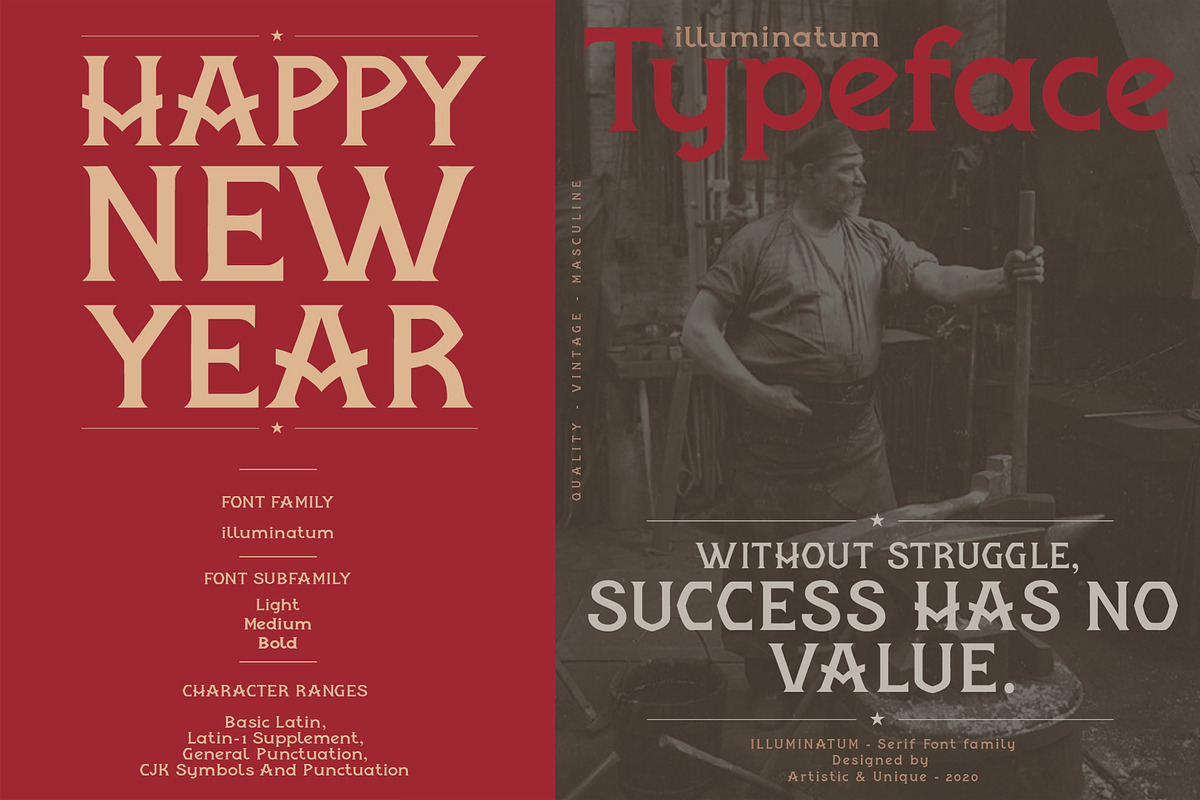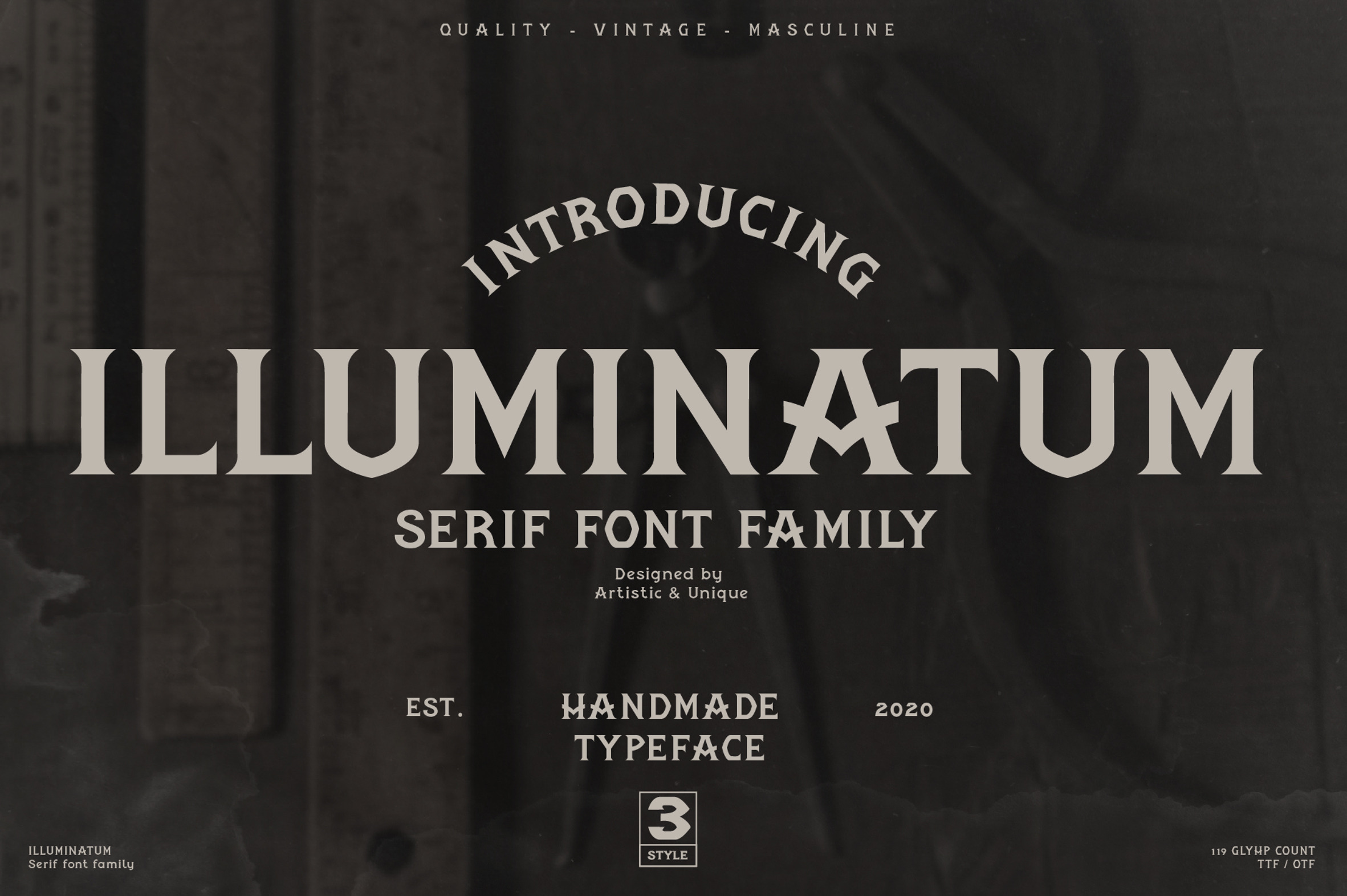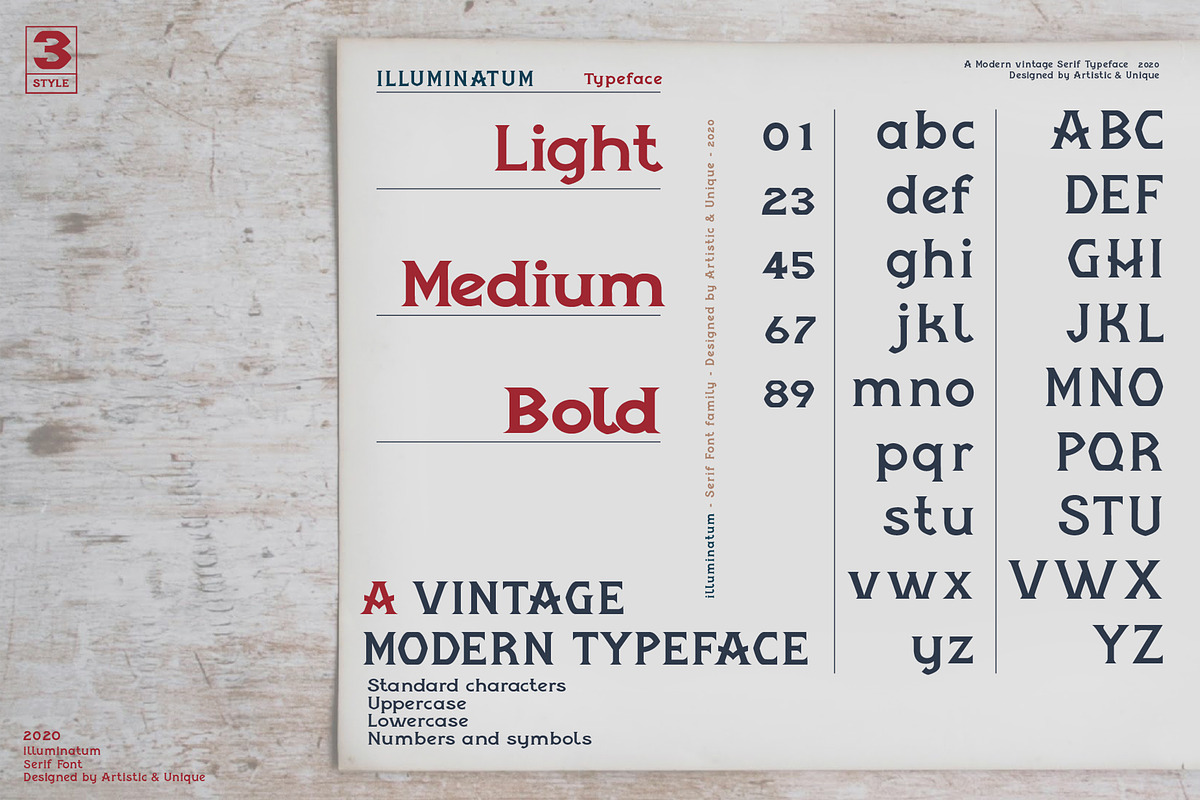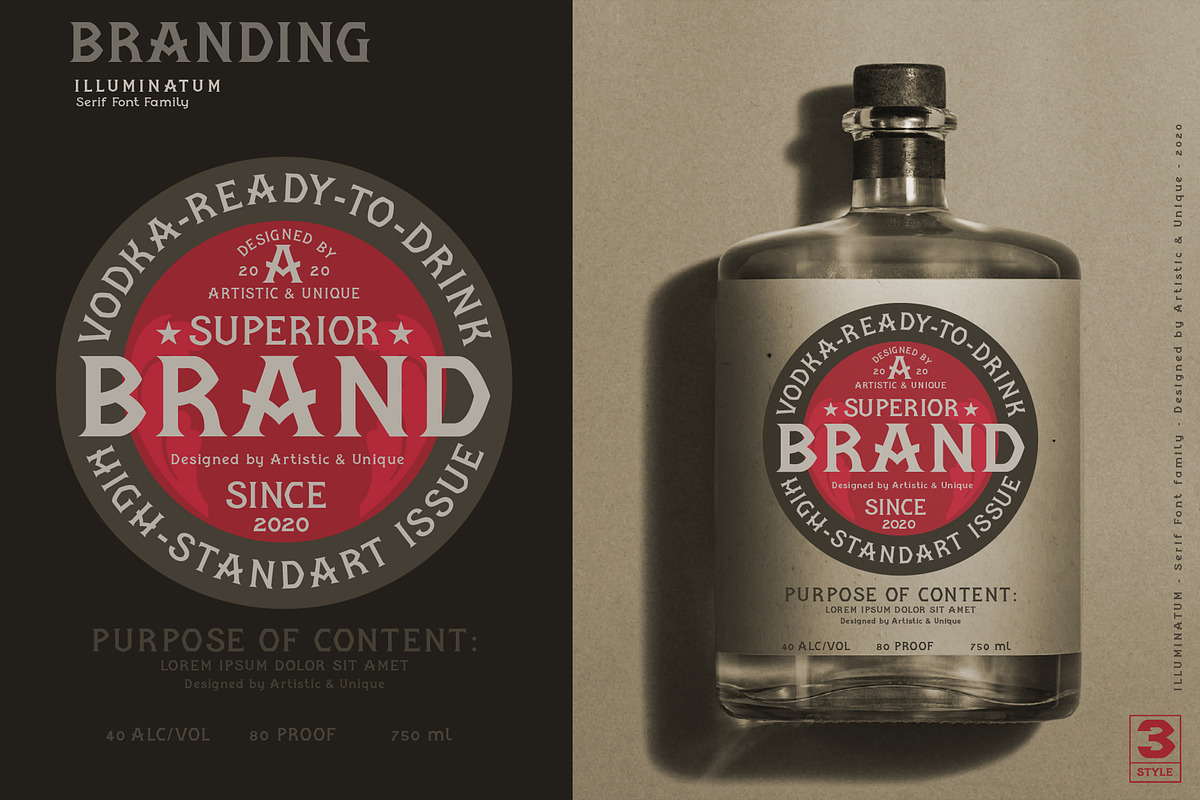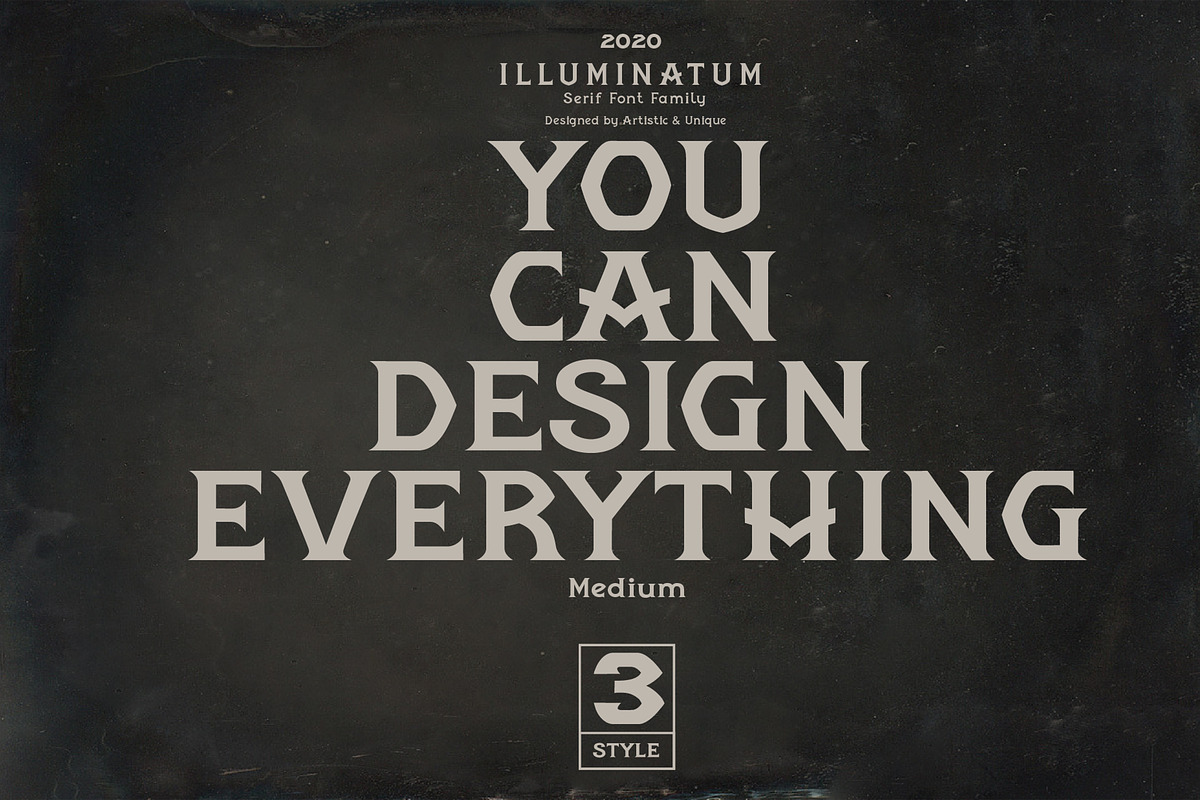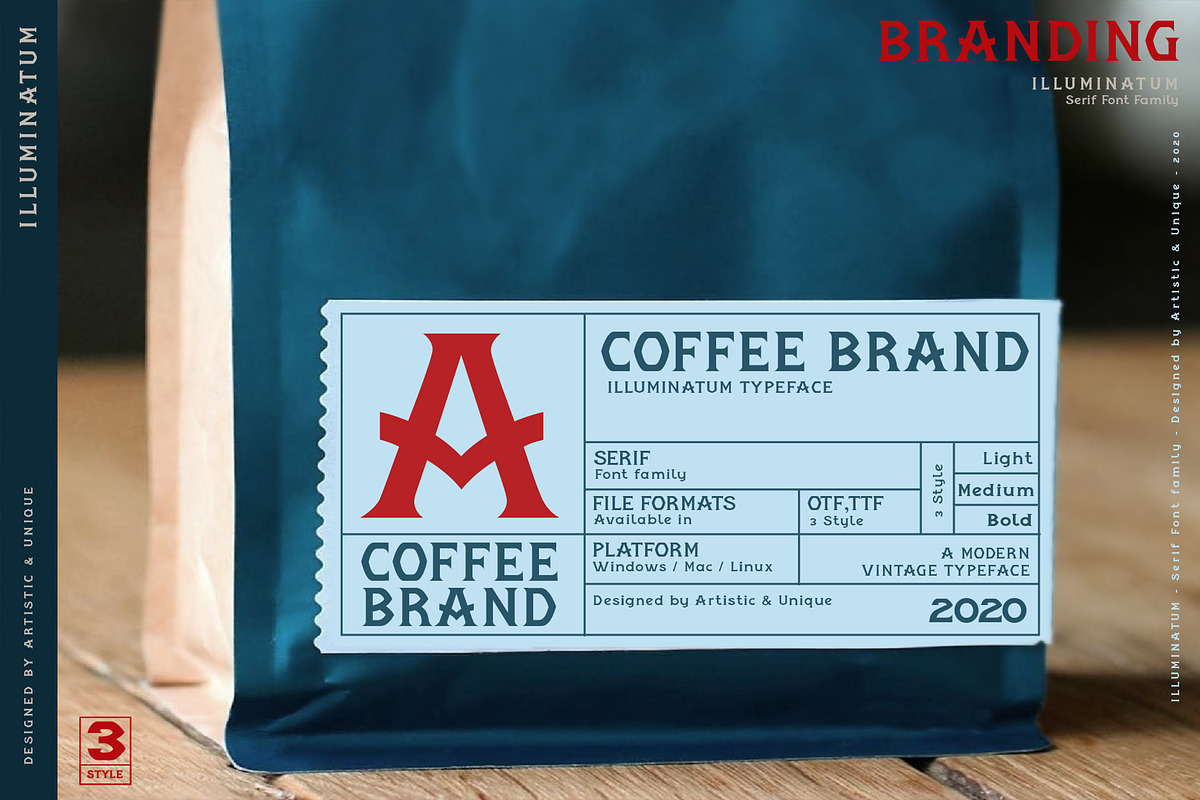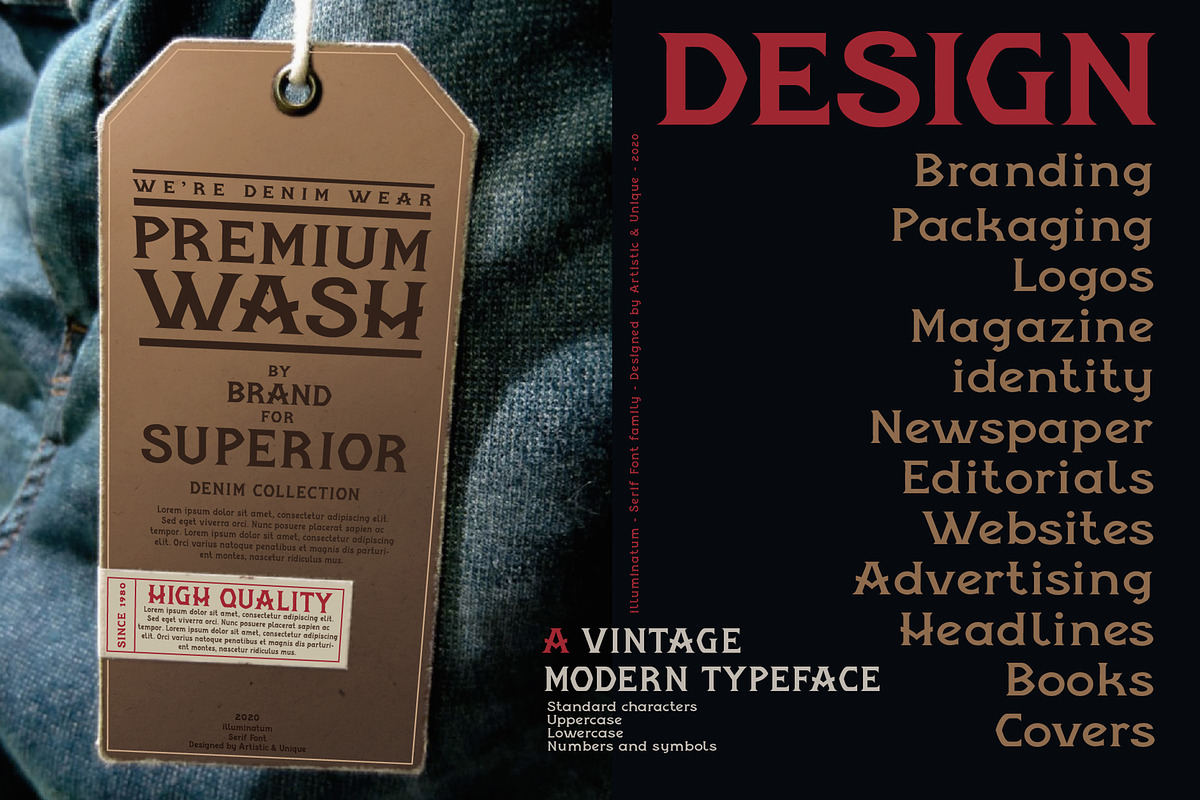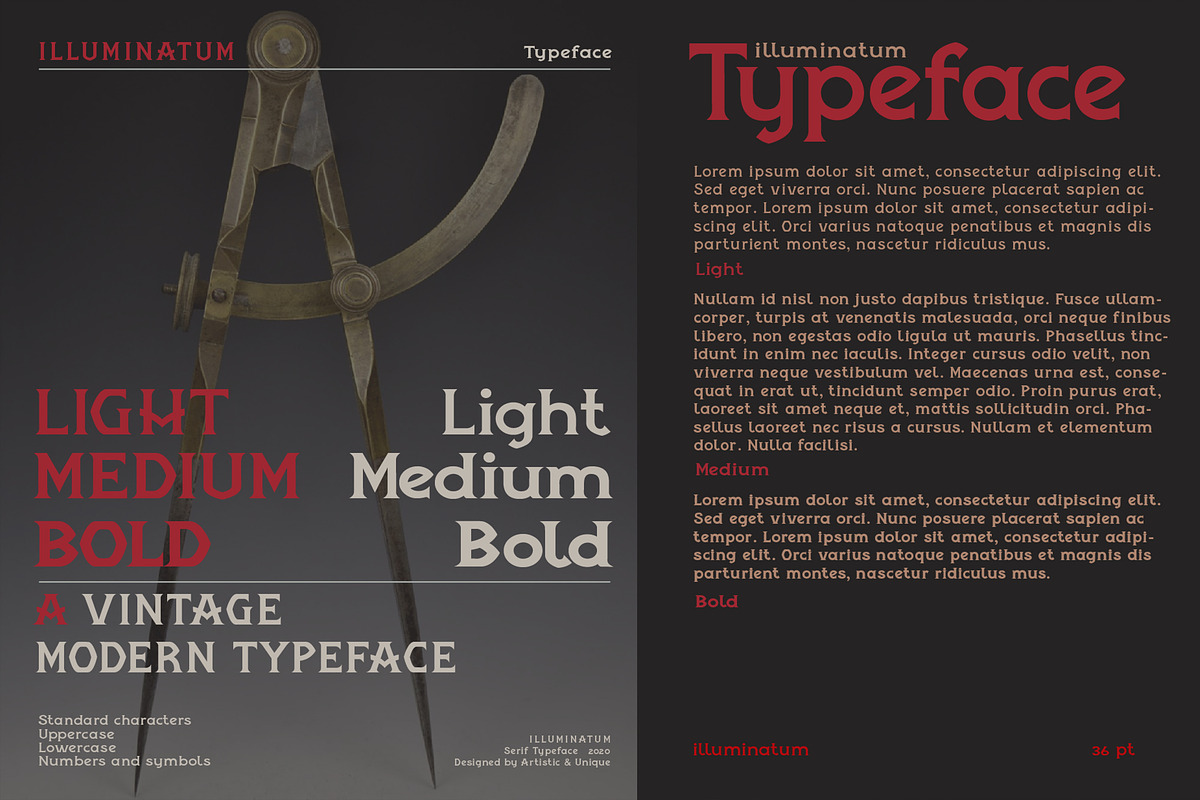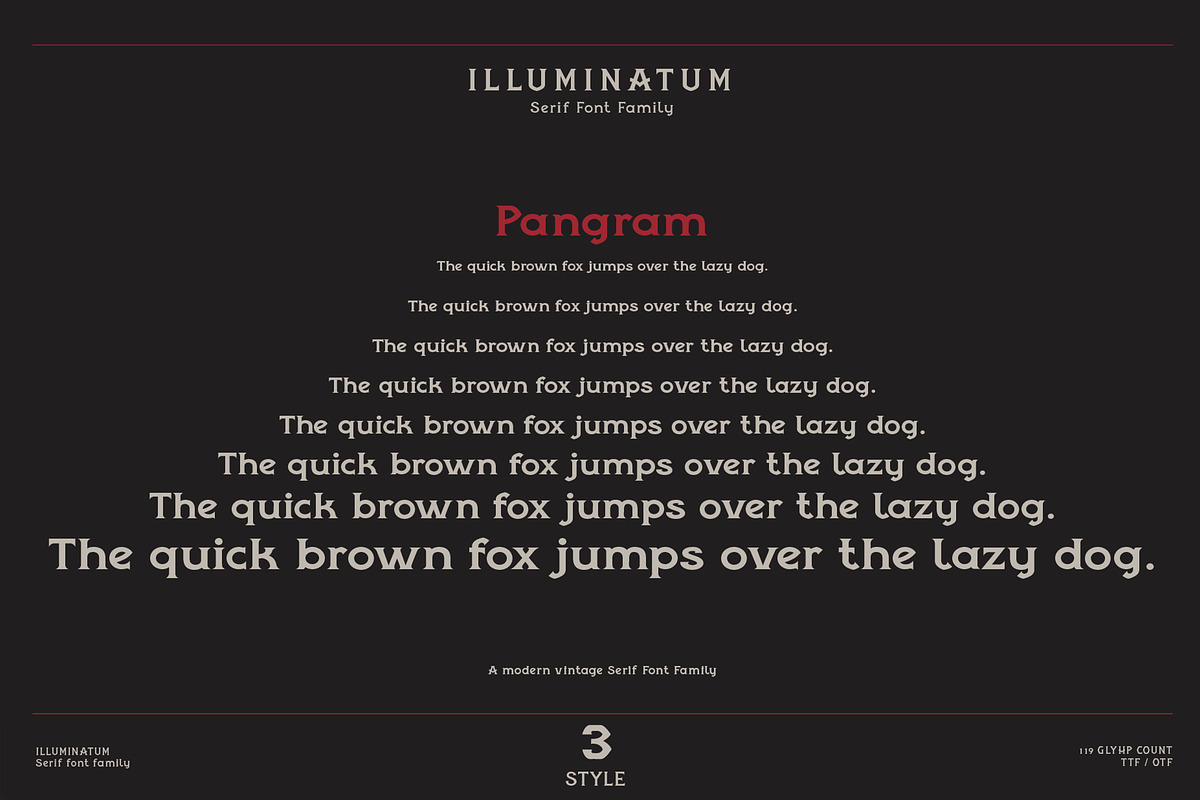
illuminatum - serif font family
INTRODUCING
We can see that everything that exists in today's modern life comes and changes form, inspired by the old-fashioned ones.The shape and structure of an object can be transformed into something else. The illuminatum serif font family is also inspired by the old fashioned one and presented to your use by combining with today's modern design elements.
This font helps you discover the best mood for your projects where you want to create bold styles with classic looking, from body text to big headlines.
Perfect for vintage logo design, headers or packaging design. Well suited for packaging, magazine and album covers, editorials, headlines, logos, invitations, branding, and more. illuminatum serif font allows you to create beautiful vintage looking designs.
- illuminatum
FONT SUBFAMILY :
Light
Medium
Bold
Uppercase typeface
Lowercase typeface
Symbols
With this font you can create your unique designs.